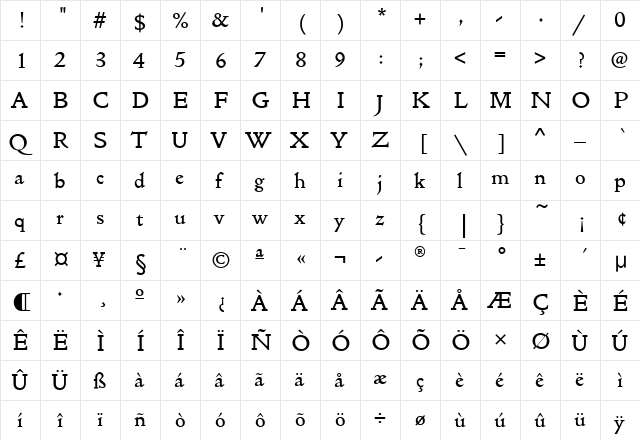
GoldenTypeITC Medium Font Preview
GoldenTypeITC Medium
GoldenTypeITC Medium Font Details
Design Context for GoldenTypeITC Typeface
GoldenTypeITC offers clean, dependable letterforms without strong stylistic allegiance, making it a practical choice for designers who need flexibility.